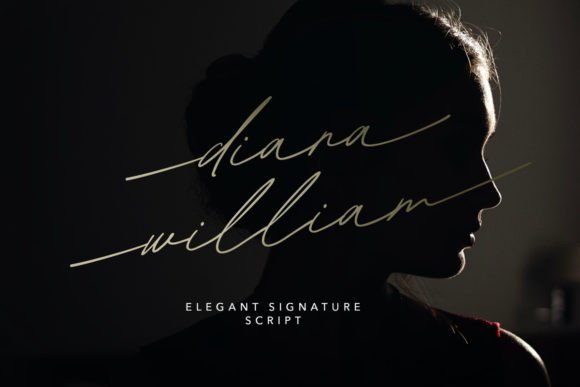
Diana William Font: A Handwritten Script Style for Authentic Charm
In the world of typography, fonts play a crucial role in conveying the tone and personality of a brand, project, or individual. Among the numerous fonts available, Diana William Font stands out for its unique, handwritten script style that exudes an authentic charm. This comprehensive article will explore the features, benefits, and uses of Diana William Font, making it an ideal choice for various purposes.
Key Features of Diana William Font
- Handwritten Script Style: Diana William Font embodies a beautiful, handwritten script style that adds a personal touch to any project.
- Authentic Charm: The font’s natural appearance and flowing lines create an authentic charm, perfect for making a lasting impression.
- End and Terminal Alternates: Diana William Font features end and terminal alternates, which enhance the beauty of your project by providing variations in letterforms.
- Multilingual Support: This font supports multiple languages, making it a versatile choice for global projects.
Versatile Uses of Diana William Font
Diana William Font’s natural appearance and unique features make it suitable for various purposes, including:
- Digital Signatures: The font’s handwritten script style and authentic charm make it perfect for creating digital signatures that stand out.
- Logos and Branding: Diana William Font can be used to create stunning logos and branding materials that convey a sense of elegance and sophistication.
- Quotes and Typography: The font’s flowing lines and natural appearance make it ideal for creating beautiful quotes and typography designs.
- Complementary Font: Diana William Font can be paired with sans or serif fonts to add a touch of elegance and personality to your project.
Benefits of Using Diana William Font
Using Diana William Font can bring numerous benefits to your project, including:
- Unique Identity: The font’s handwritten script style and authentic charm can help create a unique identity for your brand or project.
- Emotional Connection: Diana William Font’s natural appearance can help establish an emotional connection with your audience.
- Versatility: The font’s multilingual support and versatility make it suitable for various purposes and projects.
- Professionalism: Using a high-quality font like Diana William Font can add a touch of professionalism to your project.
Tips for Using Diana William Font
To get the most out of Diana William Font, consider the following tips:
- Pair with Other Fonts: Pair Diana William Font with sans or serif fonts to create a visually appealing design.
- Use for Headings and Titles: Use the font for headings and titles to add a touch of elegance and sophistication.
- Experiment with Colors: Experiment with different colors to find the perfect combination that suits your project.
- Keep it Simple: Keep your design simple and clean to let the font’s natural beauty shine.
In conclusion, Diana William Font is a beautiful, handwritten script style font that exudes an authentic charm. Its unique features, versatility, and multilingual support make it suitable for various purposes, including digital signatures, logos, branding, quotes, and typography designs. By using Diana William Font, you can create a unique identity, establish an emotional connection with your audience, and add a touch of professionalism to your project.